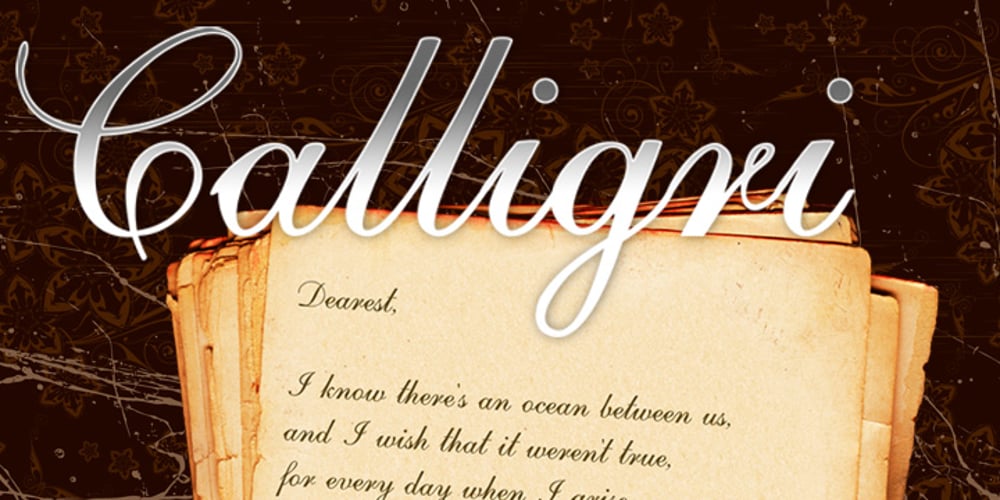
Calligri
Calligri font
Calligri Font Family was designed by published by SummitType. Calligri contains 20 styles and family package options. Someday, as computers become the new medium for writing, the art of cursive handwriting will slowly become a lost art. Calligri seeks to preserve this endangered style with tastefully drawn letters that connect with each other in classical artistry. Calligri includes a full character set (UPPER and lower case), all punctuation, all special characters, Euro symbol, and all Latin Extended-A characters, making this font a perfect match for any project including personal messages or notes, holiday cards and newsletters, and wedding invitations and announcements.